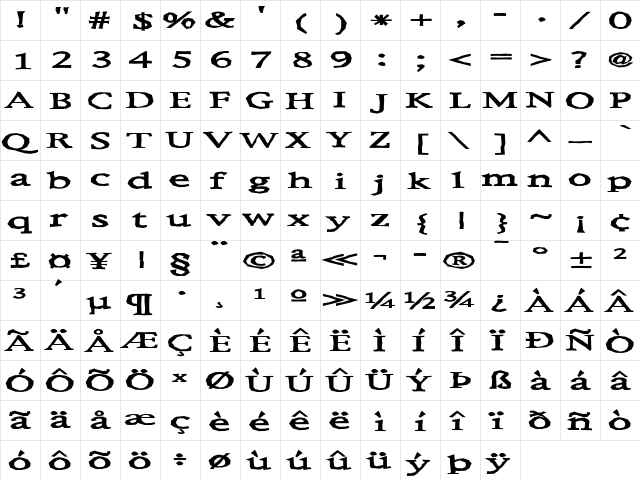
B Medium
Design Context for B Typeface
B takes a measured approach to typography — its balanced proportions and neutral character make it a reliable workhorse for both digital and print work.